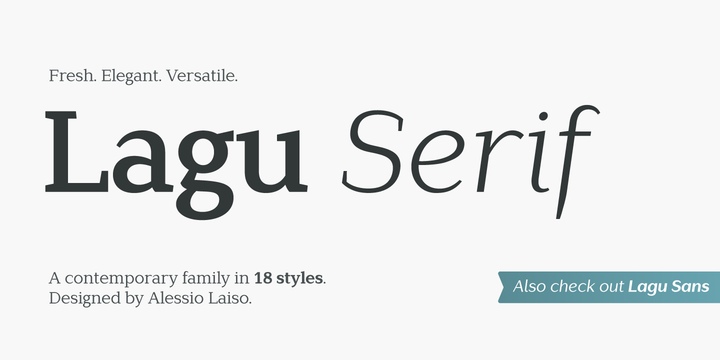
Lagu Serif Font
Lagu Serif Font is ideal for editorial magazines, book publishing, newspaper layouts, literary journals, academic publications, cultural websites, museum catalogs, premium brand communications, annual reports, and sophisticated marketing materials.
What makes Lagu Serif Font exciting is its harmonious blend of traditional serif elegance with contemporary readability optimization, creating a versatile typeface that delivers exceptional performance in both digital and print environments. This refined serif features balanced proportions and distinctive character details that ensure superior reading comfort while maintaining sophisticated visual presence.
Lagu Serif Font family includes light, regular, and bold weights with matching italics and small caps variations, providing publishers and designers with comprehensive typographic tools for creating professional editorial layouts and sophisticated brand communications.
Lagu Serif Font embodies editorial excellence with its masterfully crafted letterforms that honor traditional typography while incorporating modern optical refinements. This versatile typeface successfully combines classical authority with contemporary functionality, making it perfect for publications requiring both scholarly credibility and contemporary appeal.
Publishing professionals consistently choose Lagu Serif Font Free Download for its exceptional readability and sophisticated character across diverse editorial applications. The font's balanced construction and optimized spacing ensure superior reading experience while providing the distinctive personality essential for memorable publication design and brand recognition.
The comprehensive character collection includes complete Latin alphabets, extensive punctuation, editorial symbols, and typographic refinements supporting international publishing standards. Lagu Serif Font offers advanced OpenType features with ligatures and small caps for professional editorial typography.
Lagu Serif Font performs excellently across premium print publications and high-quality digital platforms, maintaining its sophisticated character whether featured in luxury magazines, displayed on editorial websites, or used in corporate annual reports. The font's refined construction ensures consistent professional presentation.
Editorial designers and publishing professionals appreciate how Lagu Serif Font enhances reading comfort while establishing visual authority in complex publication layouts. Its distinctive serif personality helps publications maintain credibility while adapting to contemporary reading preferences and digital distribution requirements.
Whether you're designing literary publications, creating corporate communications, or developing editorial brand identities, Lagu Serif Font provides the sophistication and readability essential for professional publishing excellence.